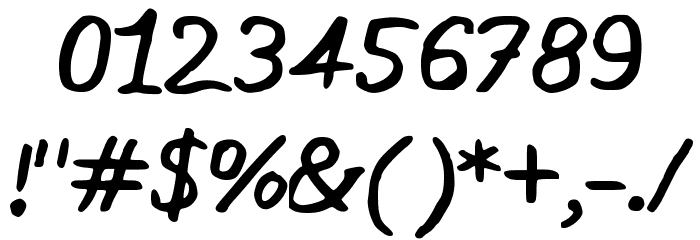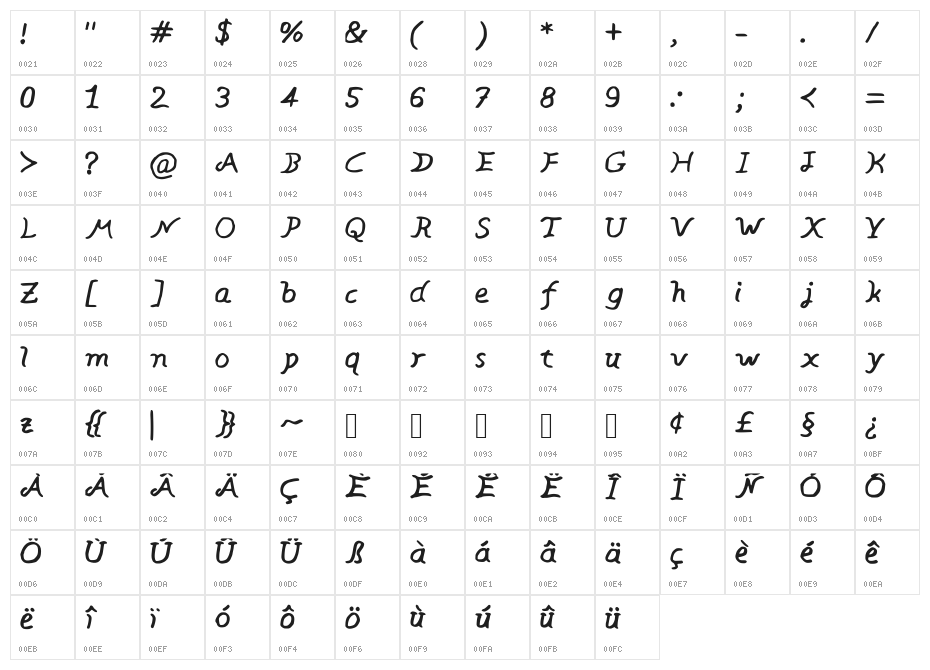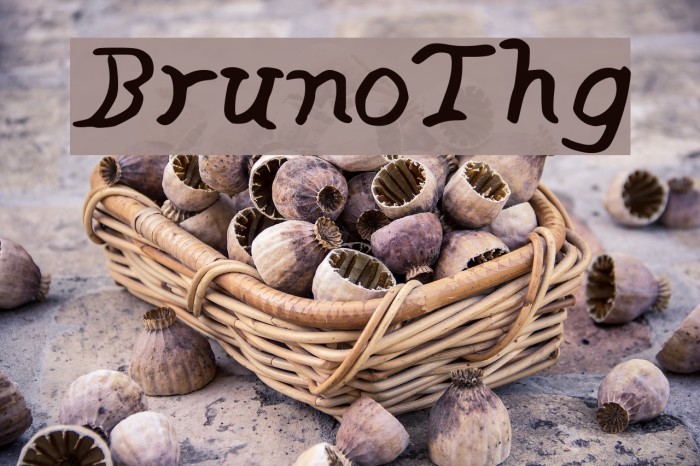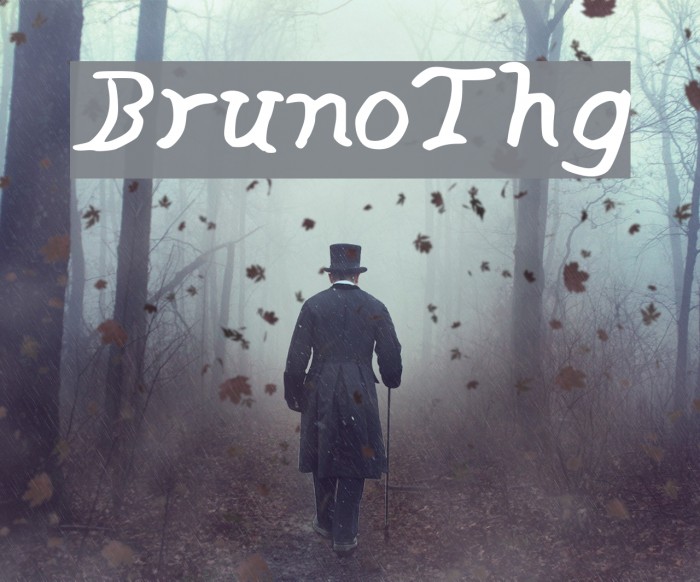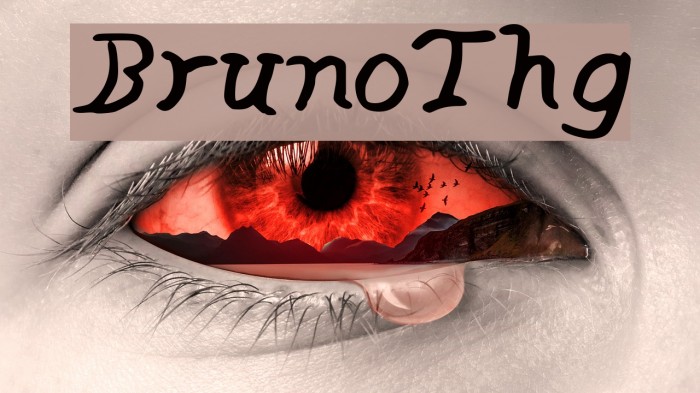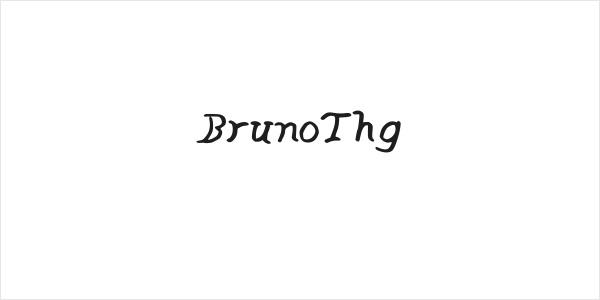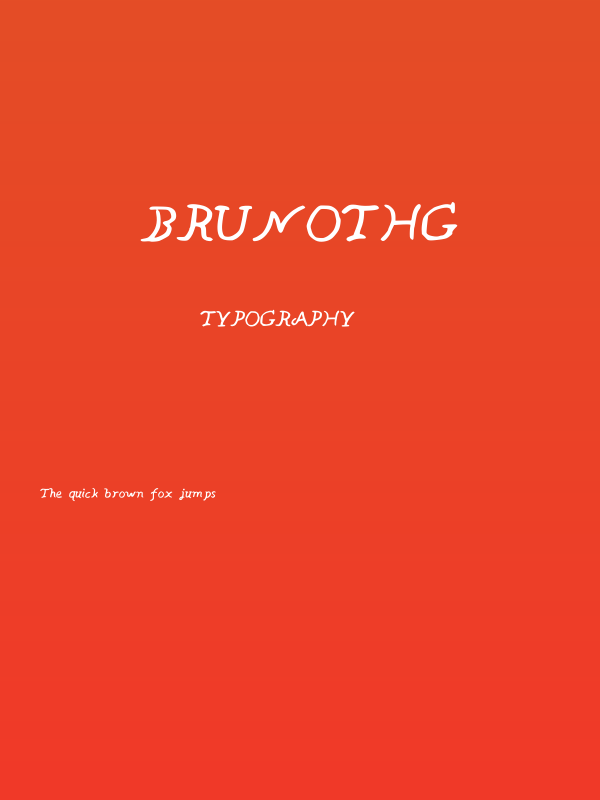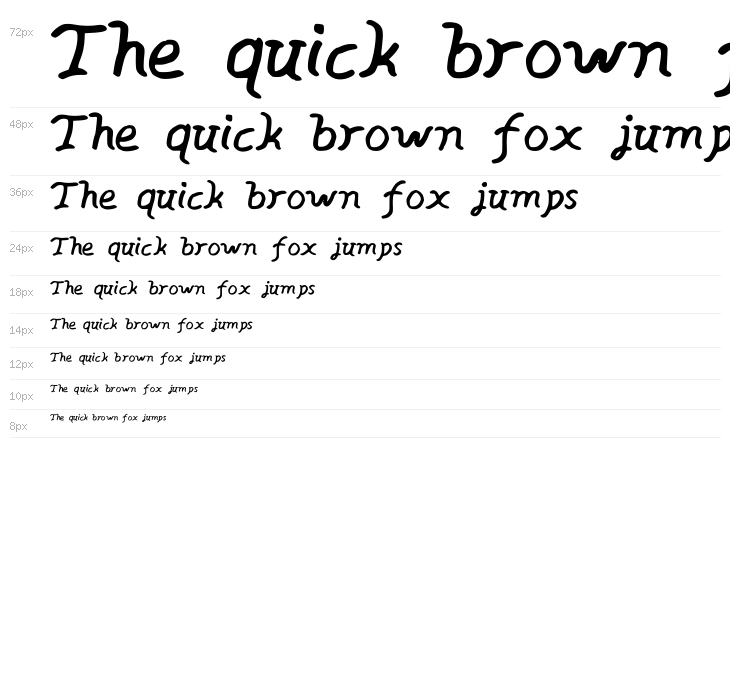
BrunoThg Font
BrunoThg Description
This font features a playful and dynamic handwritten style, characterized by its fluid and slightly irregular strokes. The uppercase letters are bold and expressive, with a slight slant that adds a sense of movement. The lowercase letters maintain a consistent style, with rounded edges and a casual feel. Numbers and special characters are crafted to match the overall aesthetic, ensuring a cohesive look across all elements. The font's unique personality makes it suitable for projects that require a touch of creativity and informality.
| Proposed Projects | Ideal for greeting cards, children's books, casual branding, and creative posters. |